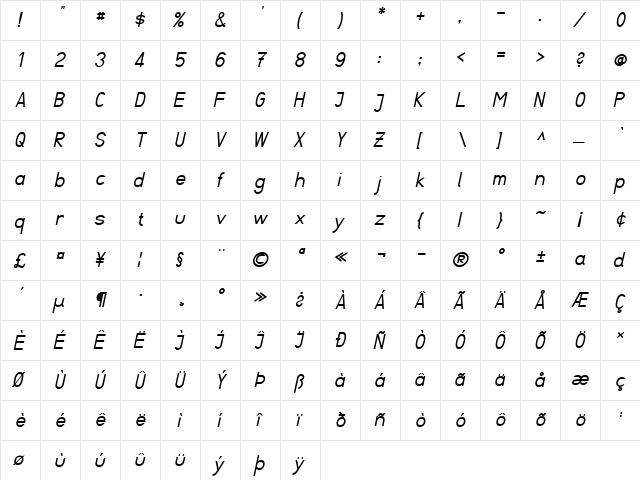
Fibel Sued Italic
| Foundry | Peter Wiegel |
| Designer | Peter Wiegel |
Design Context for Fibel Sued Typeface
Fibel Sued is a composed and adaptable typeface that performs quietly and consistently across a wide range of design contexts. Its italic angle brings a sense of urgency and motion to the letterforms.
Pro Tip: Use Fibel Sued for emphasis, pull quotes, and subheadings where its slanted energy can add rhythm to the layout.